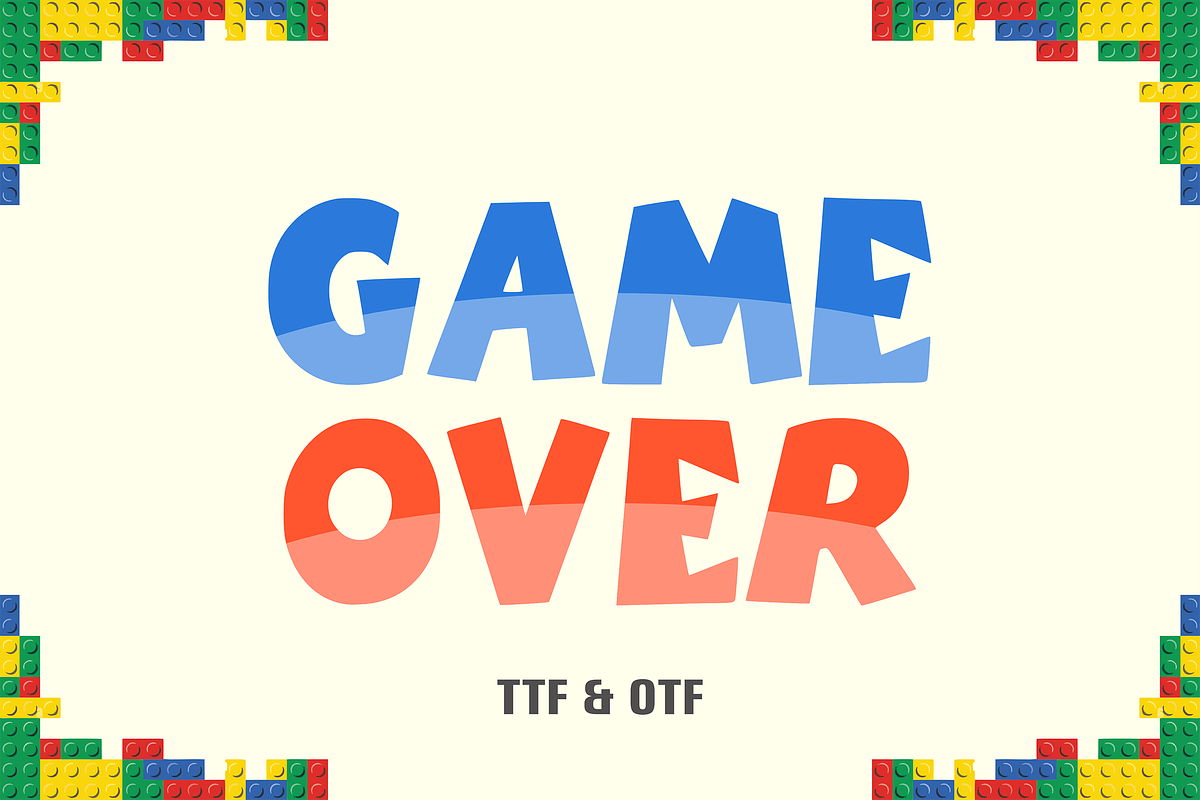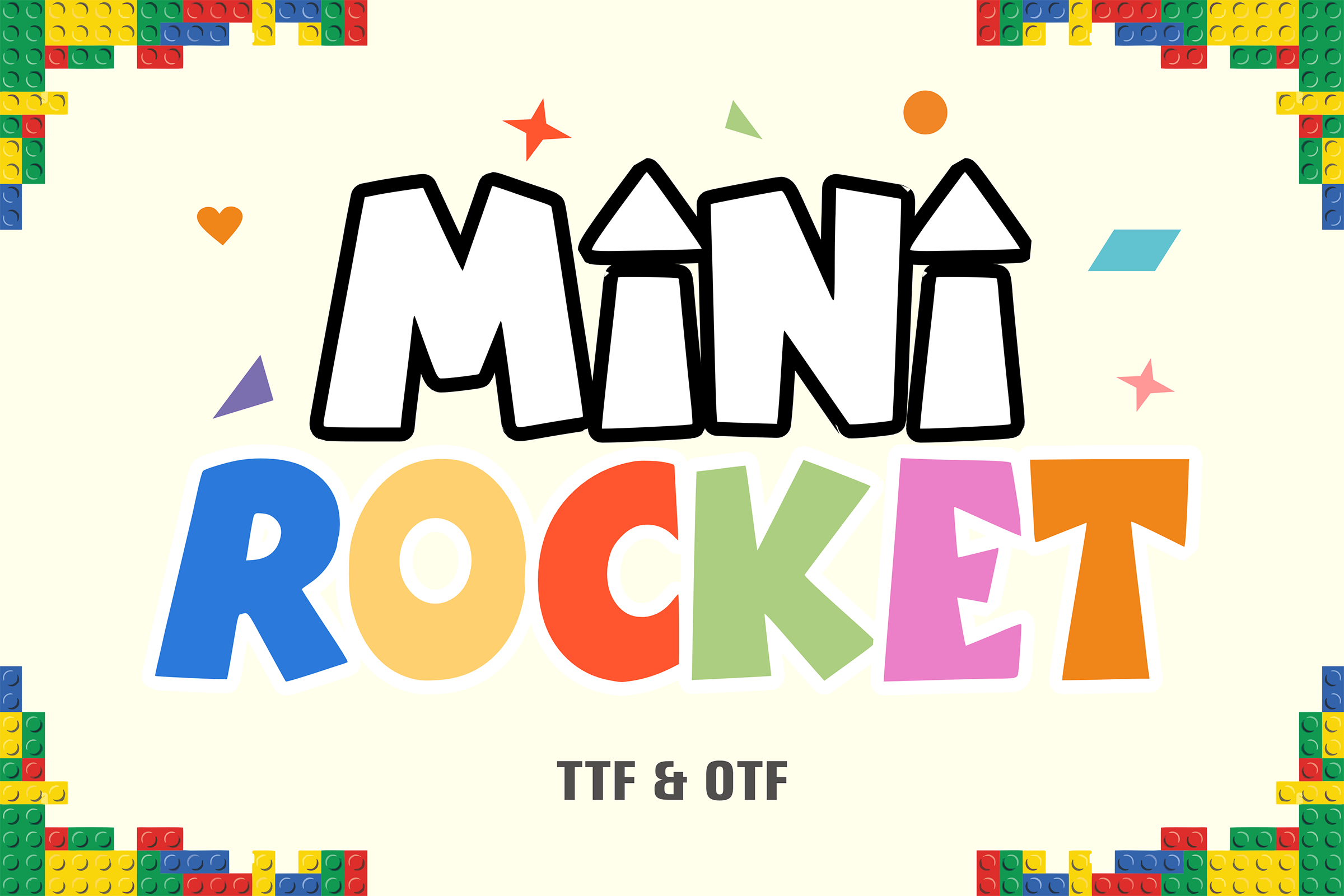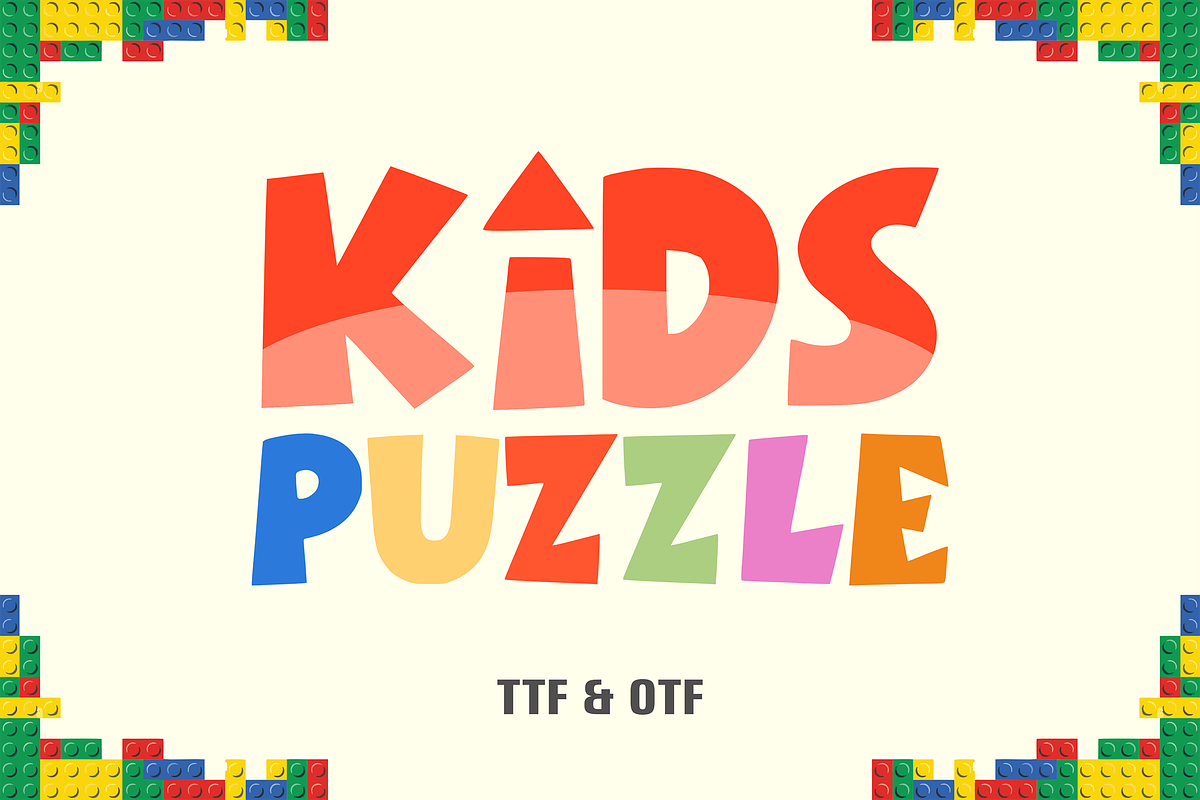
Mini Rocket - Kids Font Types
Mini Rocket is an educational game font that brings fun and imagination to your projects. With its cheerful style and appearance, this font offers hope for a variety of creative endeavors. Let this font add a pop of color and aesthetic elements to your designs, suitable for everything from posters, stickers, comics, children’s books, and more.